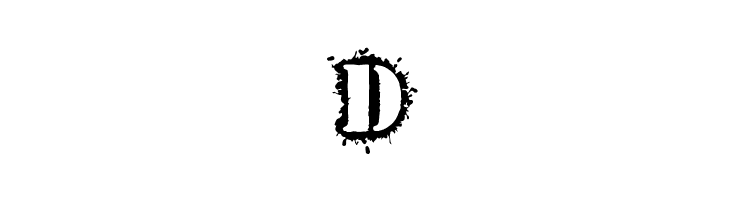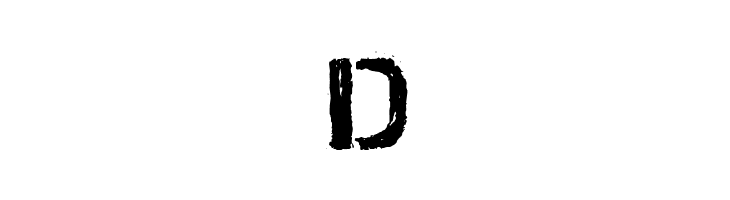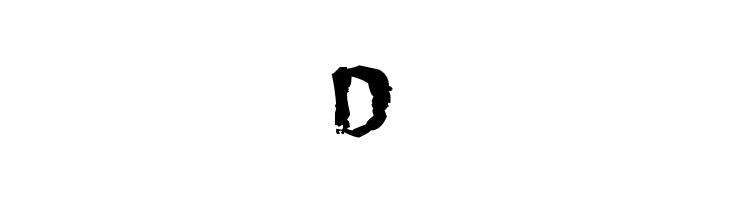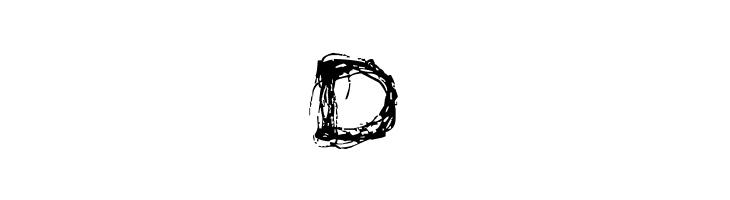
A bold, distressed font with a vintage, grunge style.
A bold, distressed font with a grunge, hand-drawn style.
A bold, distressed font with a grunge, war-torn aesthetic.
A distressed, grunge-style font with a rugged, paint-smeared look.
A bold, distressed font with a rugged, grunge aesthetic.
A bold, distressed font with a rugged, weathered appearance.
A bold, distressed font with a grunge aesthetic and irregular, dynamic shapes.
A bold, distressed font with a rugged, staggered appearance.
A distressed, hand-drawn font with chaotic, overlapping strokes for a grunge aesthetic.
A bold, distressed font with a grunge-inspired, textured style.